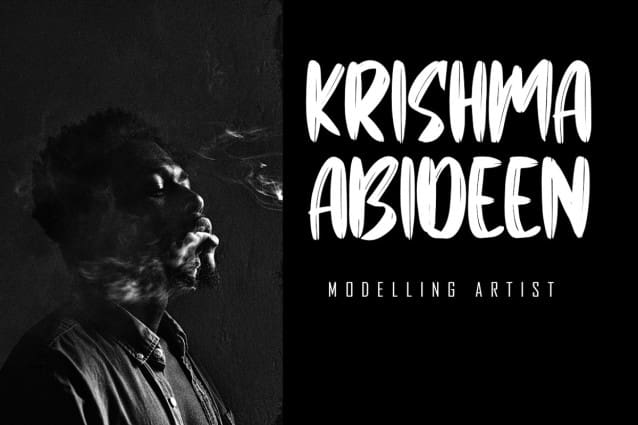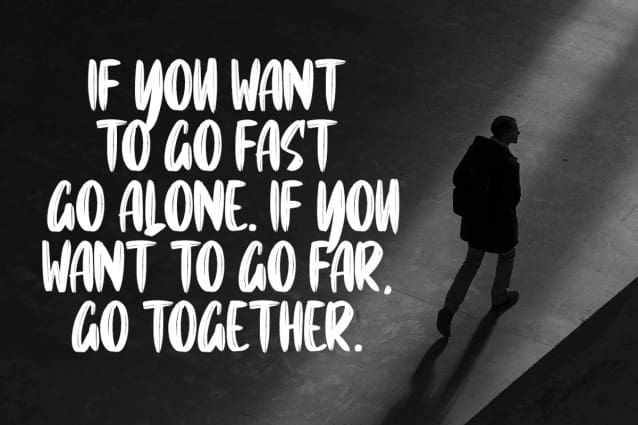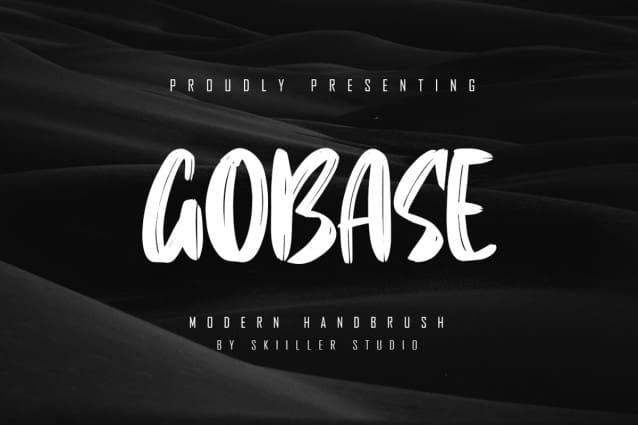
Gobase Brush Font
Gobase Brush Font is a modern and brushed handwritten font, crafted to give your headlines and logotype projects a stylish touch. This font reads as strong, confident, and dynamic and can add tons of urban character to your designs.